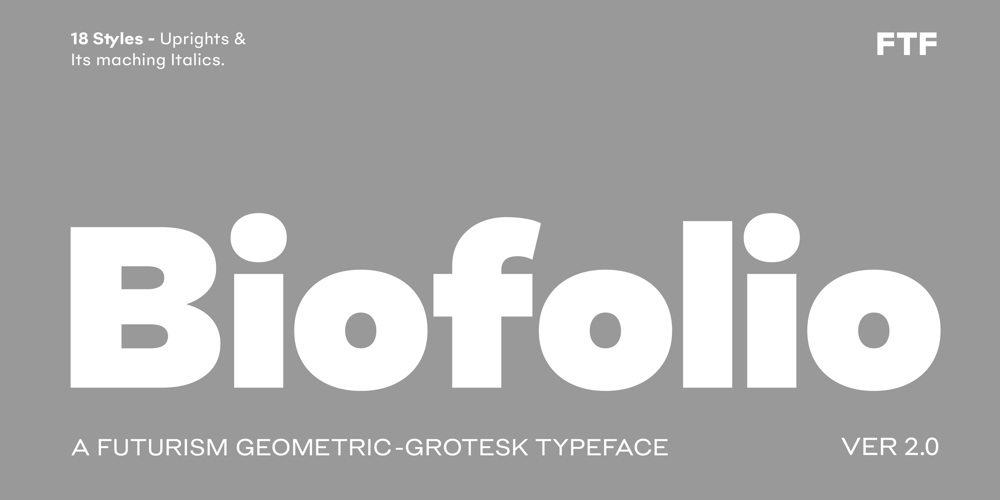
Biofolio Ultimate
Biofolio Ultimate font
Biofolio Ultimate Font Family was designed by Deni Anggara and published by Formatype Foundry. Biofolio Ultimate contains 22 styles and family package options. BehanceBiofolio Version 2.018 Styles + 2 Variable FontsThe latest version of Biofolio, updated to 2.0, introduces numerous enhancements while preserving its core identity, significantly improving upon the previous version. Key updates include: Character Refinements: Each character has been smoothed and refined for a more polished look. Some shapes have been subtly altered for better aesthetics and functionality. Uppercase “I”: The default serif on the uppercase “I” has been removed, but it remains available through OpenType alternate characters. Lowercase “a”: Redesigned to remove the tail, while retaining its distinctive curves. Variable Font Support: Biofolio now includes variable fonts, offering greater flexibility and adaptability for diverse design needs. These updates make Biofolio 2.0 ideal for a wide range of applications, from large display sizes to small body text.Biofolio Ultimate: Geometric Grotesk TypefaceBiofolio Ultimate is a geometric Grotesk typeface that explores proportion and simplicity, drawing inspiration from the elegant plainness of many lesser-known 20th-century sans-serif fonts. Comprehensive Family: 9 weights, each with matching italics, totaling 18 fonts. Language Support: Supports approximately 150 Latin-based languages. OpenType Features: Includes powerful stylistic alternates, case-sensitive forms, contextual alternates, and stylistic sets. Numerals and Symbols: Features tabular figures, symbols, superiors, inferiors, numerators, denominators, and fractions. Biofolio Ultimate is designed for versatility and precision, making it an excellent choice for various design contexts.